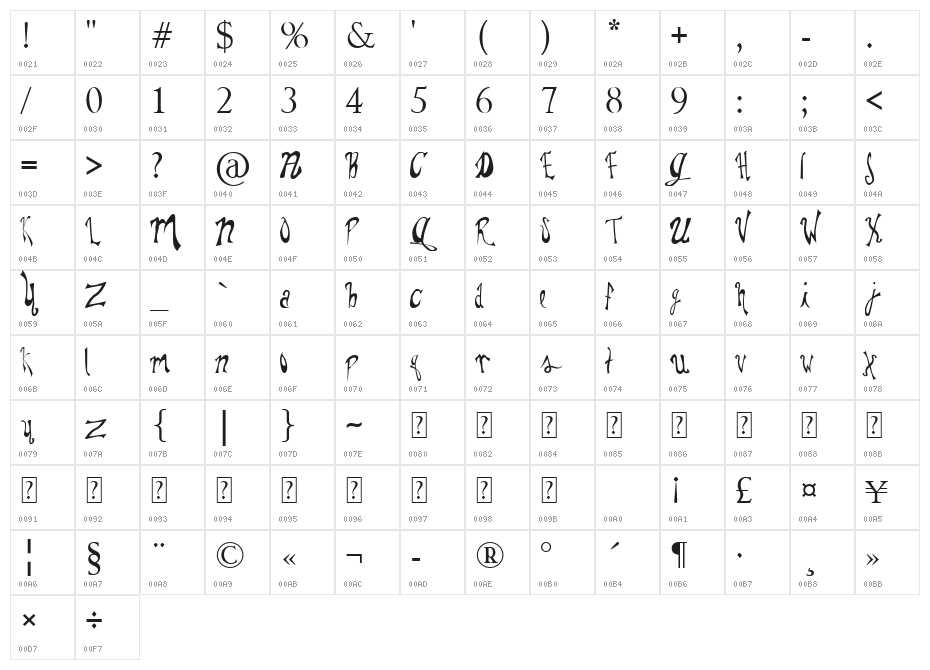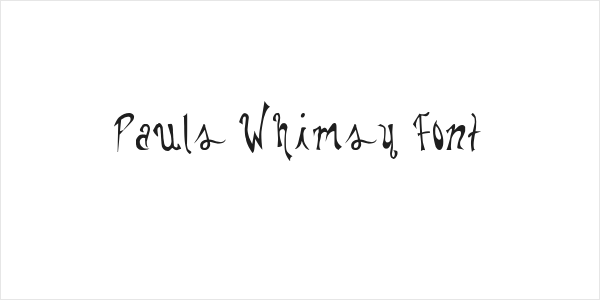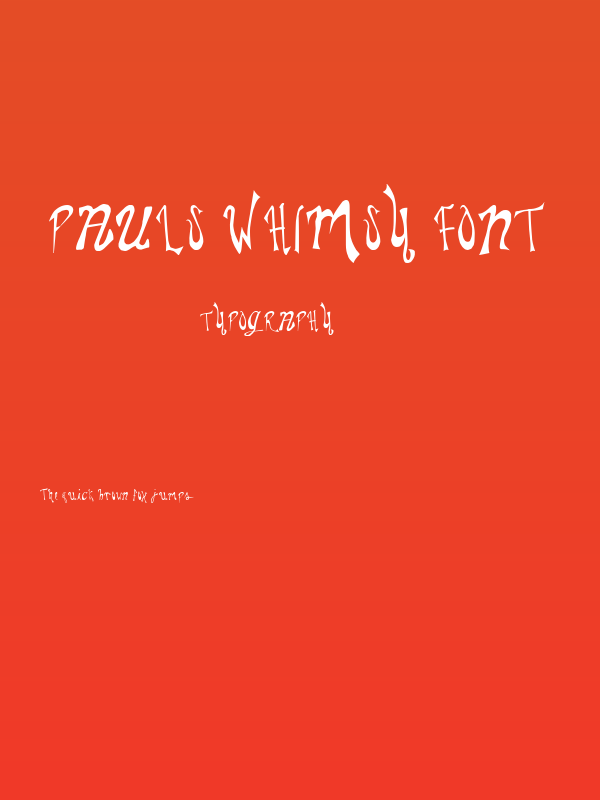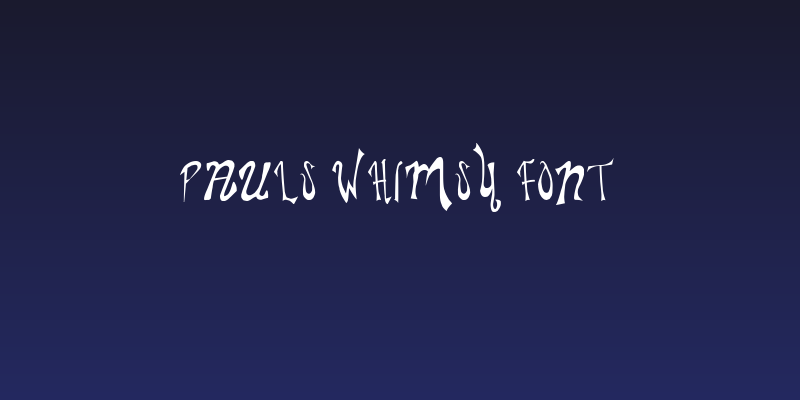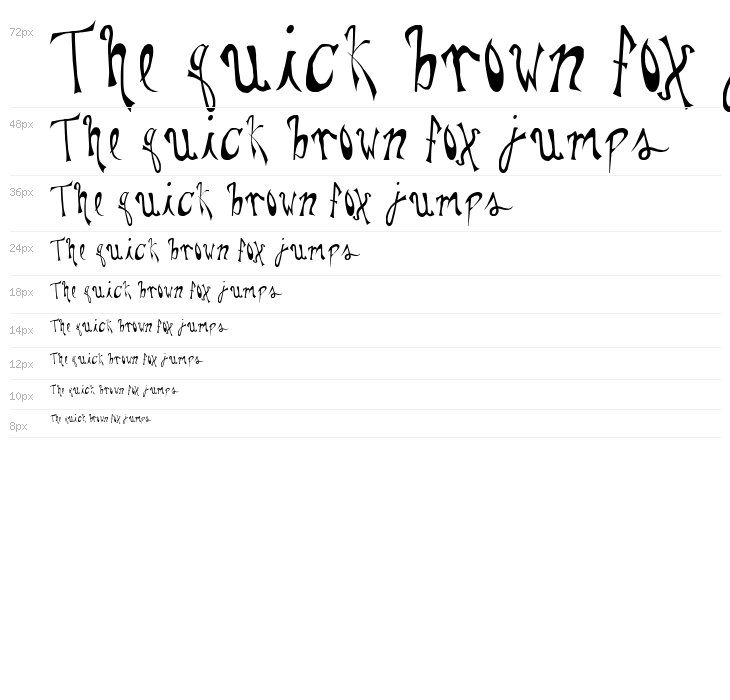
Pauls Whimsy Font Font
Pauls Whimsy Font Description
This font exhibits a whimsical and playful style, characterized by its irregular and dynamic letterforms. Each character has a unique flair, with varying stroke thicknesses and unexpected curves that give it a hand-drawn appearance. The uppercase letters are bold and expressive, while the lowercase letters maintain a consistent yet quirky design. Numbers and special characters follow the same playful aesthetic, making the font suitable for creative and informal applications. The overall impression is one of spontaneity and artistic expression, ideal for projects that require a touch of personality and creativity.
| Use Case | Headlines, Logos, Artistic projects |
| Proposed Projects | Ideal for greeting cards, children's books, playful branding, and artistic posters. |